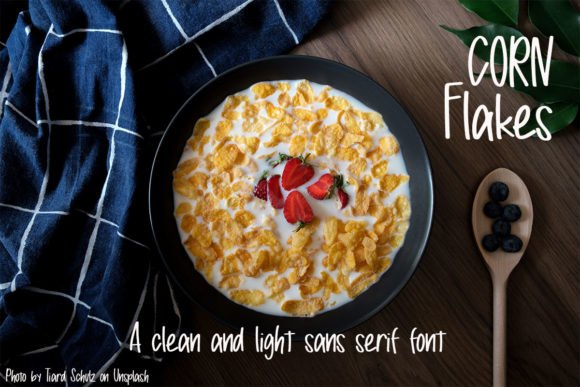
The Perfect Breakfast for Your Design
Do you remember those mornings spent rummaging through your grandmother’s kitchen, pouring over old recipe books and admiring the charming handwritten notes on the back of a cereal box? For designers, those moments can spark a creative spark that translates into real-world projects. And speaking of cereal, have you ever noticed the quirky charm of the packaging?
That’s where Corn Flakes Font comes in – a smooth handwritten font that brings a casual touch to your design projects. Perfect for logos, greeting cards, packaging, branding, and more, this versatile font is sure to elevate your work to the next level. With Corn Flakes Font, you can create unique and eye-catching designs that leave a lasting impression.
Corn Flakes Font Key Features
- Unique Characteristics: The Corn Flakes font features a distinctive, playful design with rounded edges and a retro aesthetic, making it perfect for creative and nostalgic projects.
Corn Flakes Font Review
I recently had the chance to work with the Corn Flakes Font, and I must say it’s a mixed bag. On the one hand, here are some things that work well:
- ✨ The font is highly legible, even at small font sizes. This makes it perfect for body text or captions.
- ✨ The font’s rounded edges and smooth curves give it a friendly, approachable feel that’s great for branding and packaging.
- ✨ The font is highly customizable, with a wide range of weights and styles available. This makes it easy to adapt to different design contexts.
- ⚠️ The font can feel a bit too playful and childish for certain design applications. This may not be suitable for more formal or professional projects.
- ⚠️ The font’s rounded edges can make it difficult to create sharp, clean lines. This may be a challenge for designers who prefer a more geometric aesthetic.
Overall, I’d say the Corn Flakes Font is a solid choice for designers who are looking for a friendly, approachable font. While it may not be suitable for every project, it’s a great option for branding, packaging, and other design applications where a playful feel is desired.
Tip: Use the Corn Flakes Font for playful and whimsical designs, such as birthday invitations or children’s party decorations.
Tip: Use the Corn Flakes Font for creative and eye-catching designs, such as magazine covers or advertisements.
Tip: Use the Corn Flakes Font for informal and casual documents, such as blog posts or social media updates.
The Corn Flakes Font is ideal for:
- Playful and whimsical designs
- Creative and eye-catching designs
- Informal and casual documents